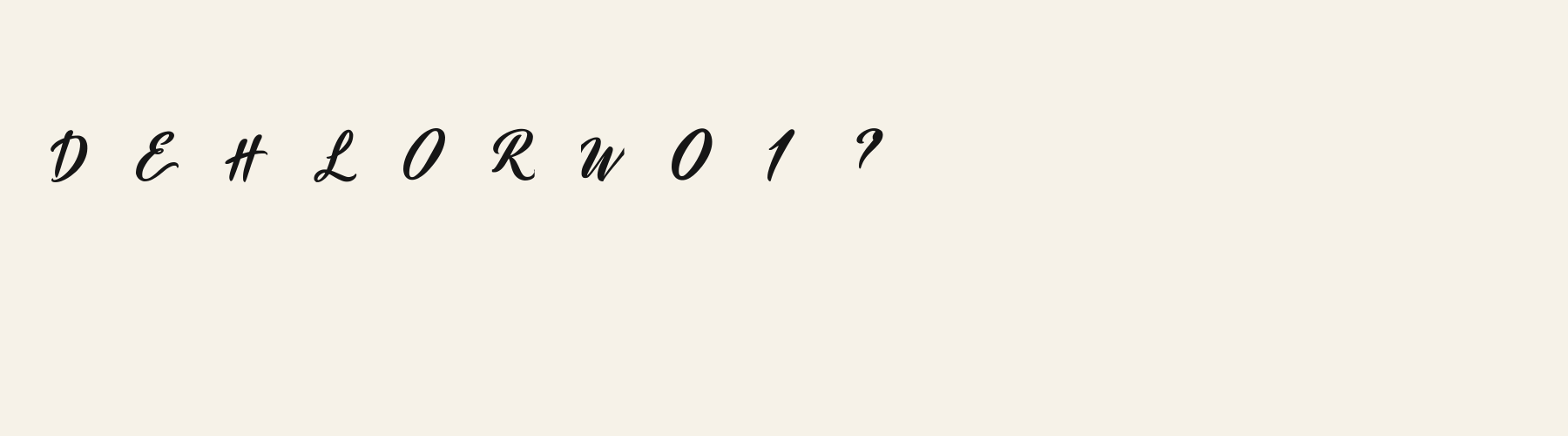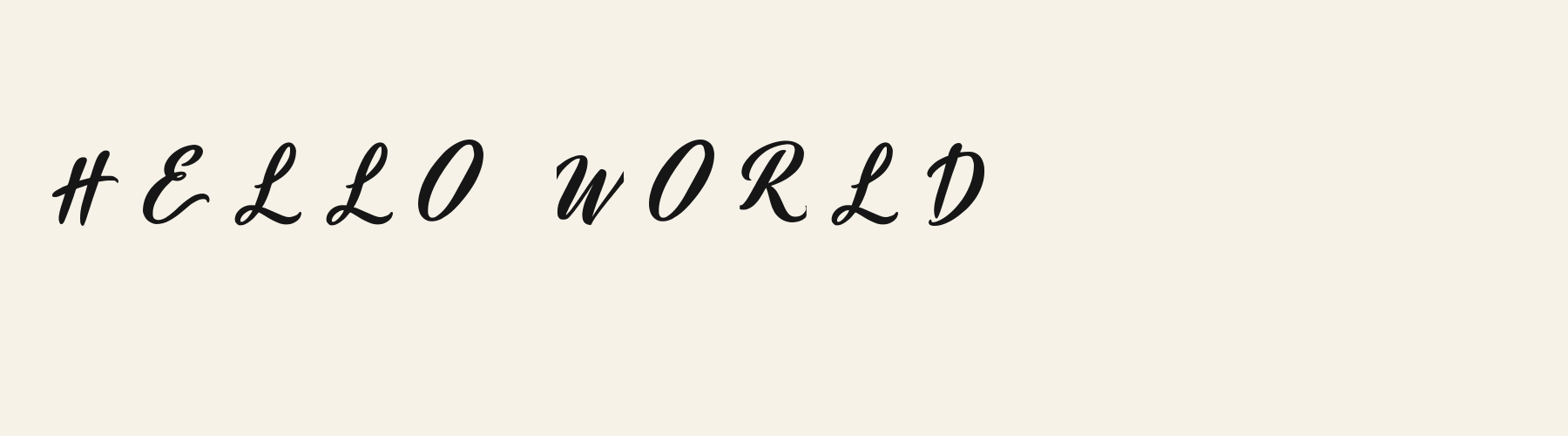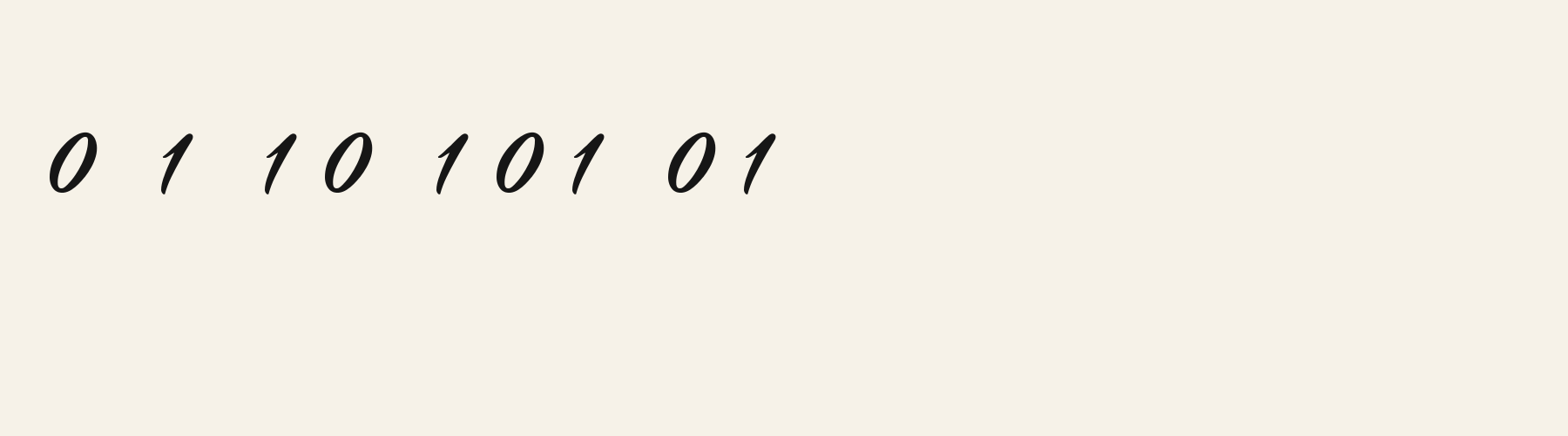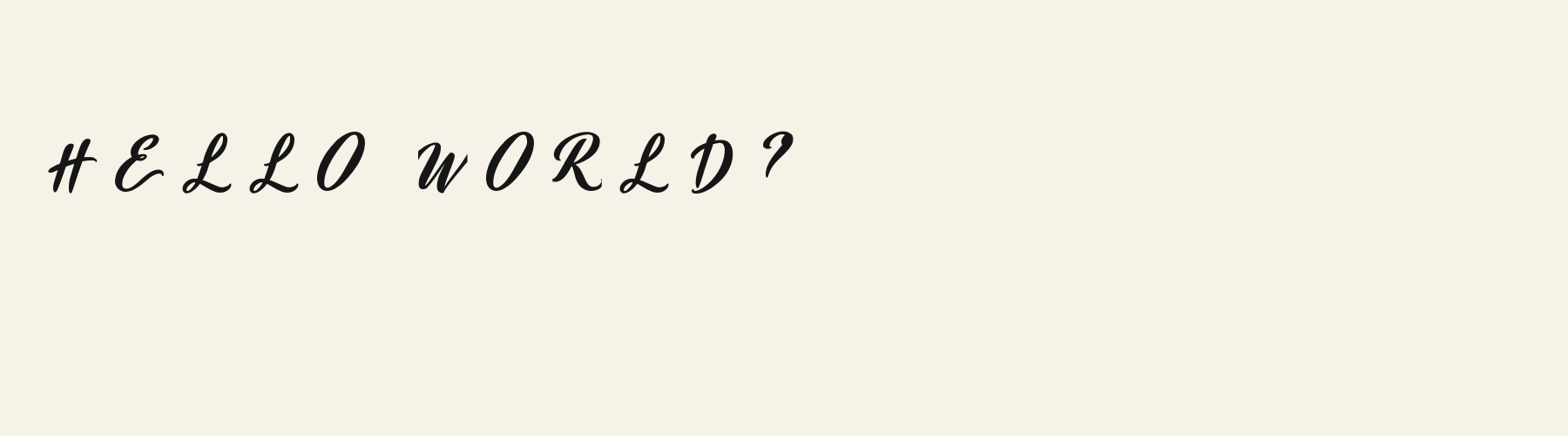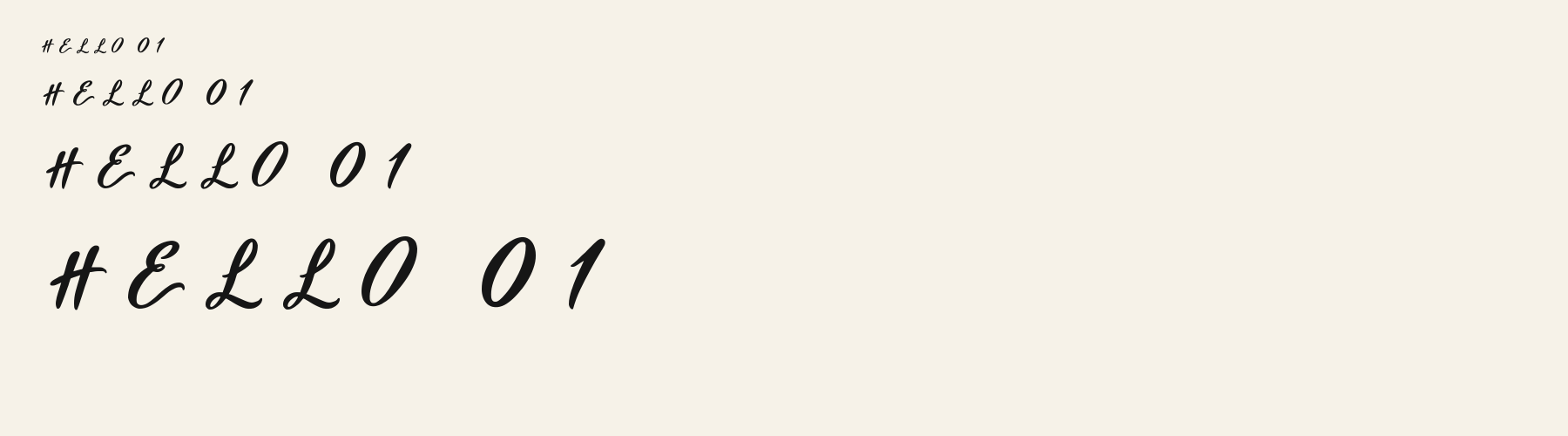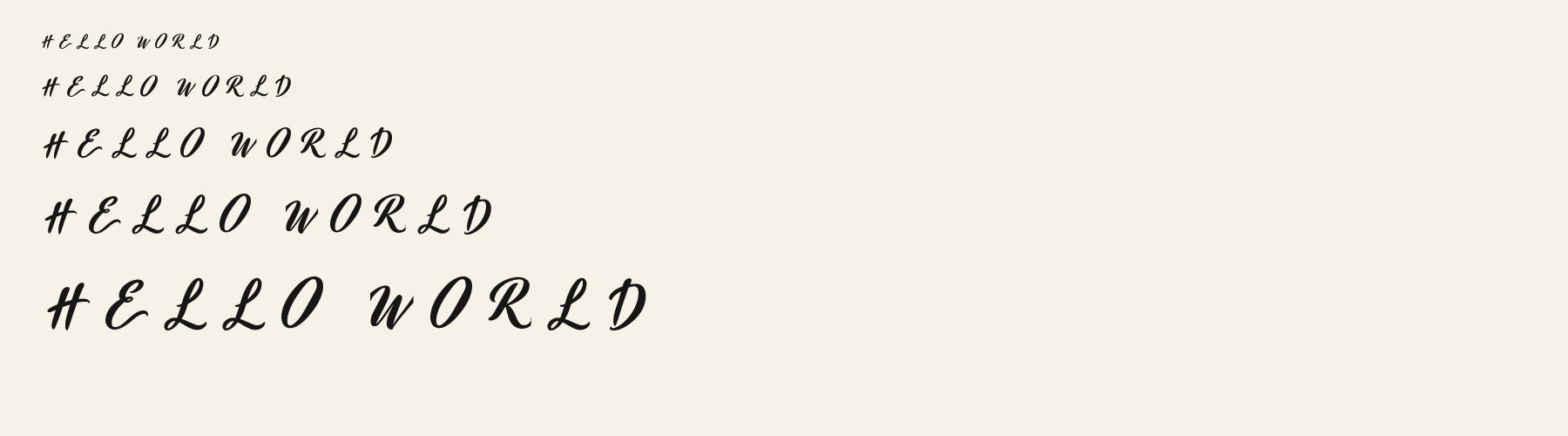
Script Signpainter Swash Spiral Bowl Brush Font
Script Signpainter Swash combines a strong rightward lean with dark, swelling strokes and fine curved returns.
Spiral Bowl Brush Letterforms
Script Signpainter Swash combines a strong rightward lean with dark, swelling strokes and fine curved returns. The E coils inward at the top, then opens into a generous lower curve. The L rises through a narrow loop before spreading into a low, upturned exit, while the R sends its leg outward in a rounded flourish. In the uppercase sample, these extended endings create movement without joining every neighboring letter. The O is a clean tilted oval, offering a quieter shape between the more elaborate capitals. Smooth edges and controlled stroke endings give the lettering a confident, lively shopfront mood.
Inspect repeated L endings, the E curl, and the R leg in your actual Latin wording; check neighboring strokes for crowding. Preview punctuation alongside the capitals. Accented Latin and other scripts need separate coverage checks, since these specimens establish neither their forms nor their availability.
Try this face for a short heading or name, with a plain upright sans serif for descriptions and supporting labels. Its slanted capitals and sweeping baseline endings already supply movement, so a steady companion can make the information hierarchy easier to follow.
Script Signpainter Swash: letterforms and layout
Compare smaller and larger previews, watching the narrow loops in L and the curled entrance of R. Check whether those openings stay distinct and whether the repeated baseline sweeps retain enough separation.
In this uppercase phrase, Script Signpainter Swash offers solid dark strokes, narrow rising loops, and pronounced thick-to-thin transitions. The repeated L terminals sweep along the baseline, giving the wording a brisk, directional rhythm.
CORNER CAFE
Shop sign. The solid strokes and leaning capitals give a short shop name a lively rhythm, with curled details adding character. GOLDEN HONEY
Product label. Broad dark curves and fine returning strokes give a brief product name a distinctive focal point on a simple label. WILD ROSE
Logo or badge. The sweeping L and curled R bring movement to a compact wordmark, especially when surrounding details stay restrained.
About Script Signpainter Swash
Its lowercase is tall: the x-height is 53.8% of the cap height, against a median of 48.5% for script fonts, taller than 45 of the 53 other script fonts. Ascenders on b, d, h, k and l stop at 94.8% of the capital height, and descenders on g, j, p, q and y drop 35.7% of the cap height below the baseline, shallower than 49 of the 53 other script fonts. Script Signpainter Swash runs 16.1% wider than the median for script fonts: an average lowercase letter, spacing included, is 74.4% as wide as the capitals are tall (an average capital, 82.2%). The o is wider than it is tall, 1.27 to 1, and no capital is wider than H. The O stops 8.7% of the cap height short of H and stands 8% above the baseline.
Vertical stems measure 11.9% of the cap height. Ink covers 24% of each lowercase letter's box (its advance width by the cap height), lighter than 30 of the 53 other script fonts.
Its 95 characters include 52 Latin letters, plus 43 figures, punctuation marks and symbols; there are no accented Latin letters beyond A to Z. The word space measures 51.3% of the cap height, and the blank space either side of a lowercase letter takes up 4.2% of its width. The font carries no kerning, so spacing comes from each letter’s own side bearings. The figures have different widths, so columns of numbers set in Script Signpainter Swash will not line up exactly.
- Structure
- Connected brush rhythm, compact loops and long controlled exit swashes contained inside each cell
- What fonts pair well with Script Signpainter Swash?
- Halo Light (sans serif), Geo Diagonal Aperture (sans serif) and Mellow Italic (serif) are drawn on a different letter structure, so Script Signpainter Swash can carry the headings while one of them sets the text. Each has its own page with a type tester for trying the pair.